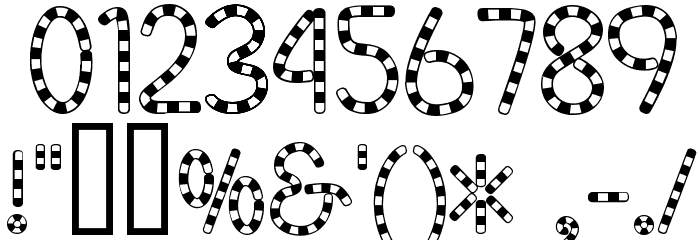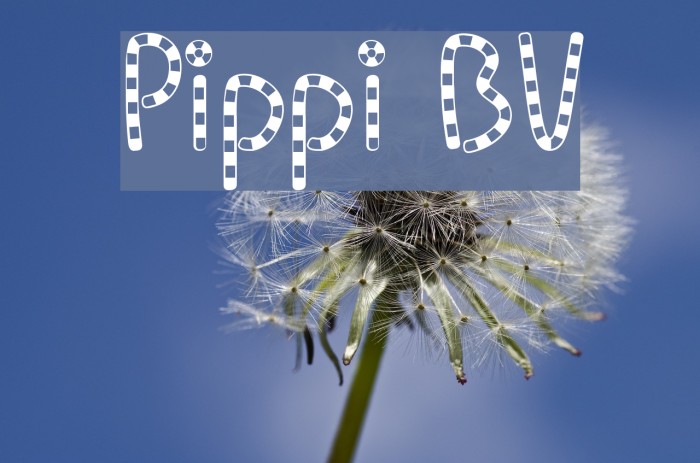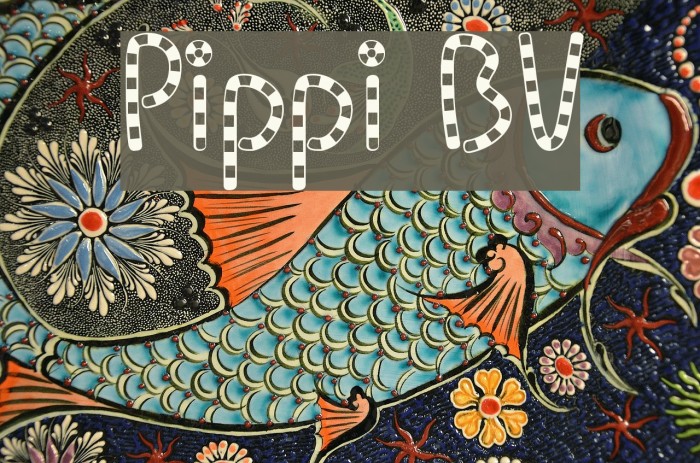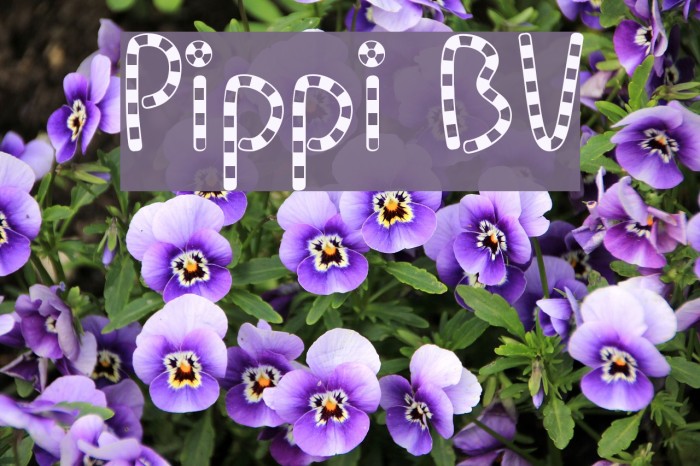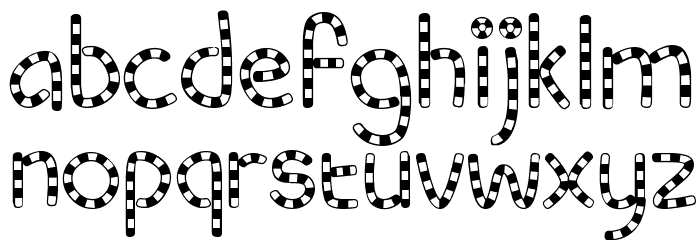
Pippi BV Font
This playful and whimsical font features a unique striped pattern that alternates between black and white, reminiscent of candy canes or festive decorations. The characters are rounded and bold, giving them a friendly and approachable appearance. Each letter is distinct, with a consistent pattern that adds a sense of rhythm and movement. The font's design is eye-catching and ideal for creative projects that require a fun and lively touch. Its decorative nature makes it suitable for headlines, posters, and any design that aims to capture attention with a cheerful vibe.
A playful, striped decorative font with a candy cane-like appearance.
• Proposed Projects: Ideal for children's book covers, holiday-themed invitations, playful branding, and festive event posters.
• Category: Decorative/Display
• Overall Style: Playful, Whimsical
• Use Case: Headlines, Posters, Branding